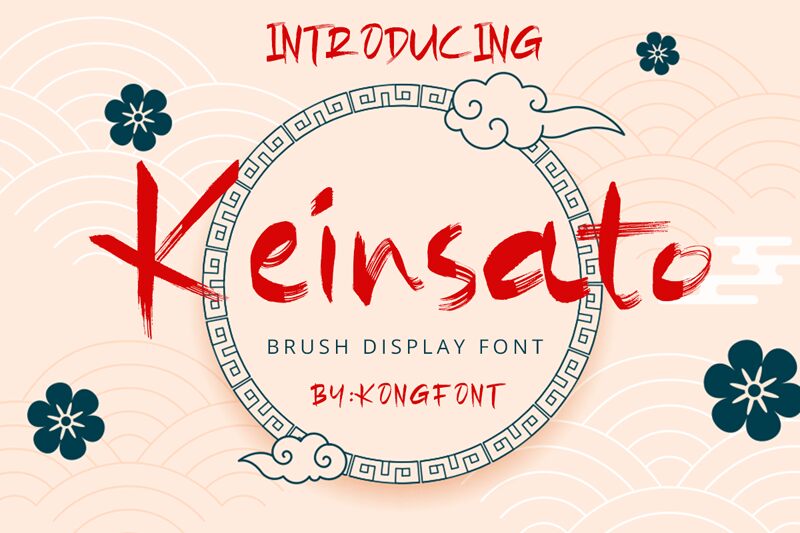
Keinsato font by Kong Font brings an energetic movement to the table that breathes life into design projects. Brush-like textures of this free brush font are present and powerful among the characters. This individuality adds an artistic touch with an expressive feel. A subtle modern aesthetic can also be noticed here despite every rough line that reveals craftsmanship.
Logos shine when they include this font as do websites, posters, flyers, card designs, packaging stickers to make them pop on shelves, books especially covers for a recognizable read each time. The same goes for magazines and newspapers where you want readers excited about picking up their daily news in style!